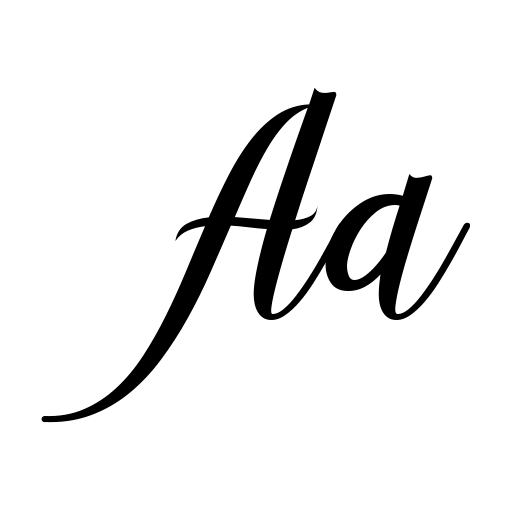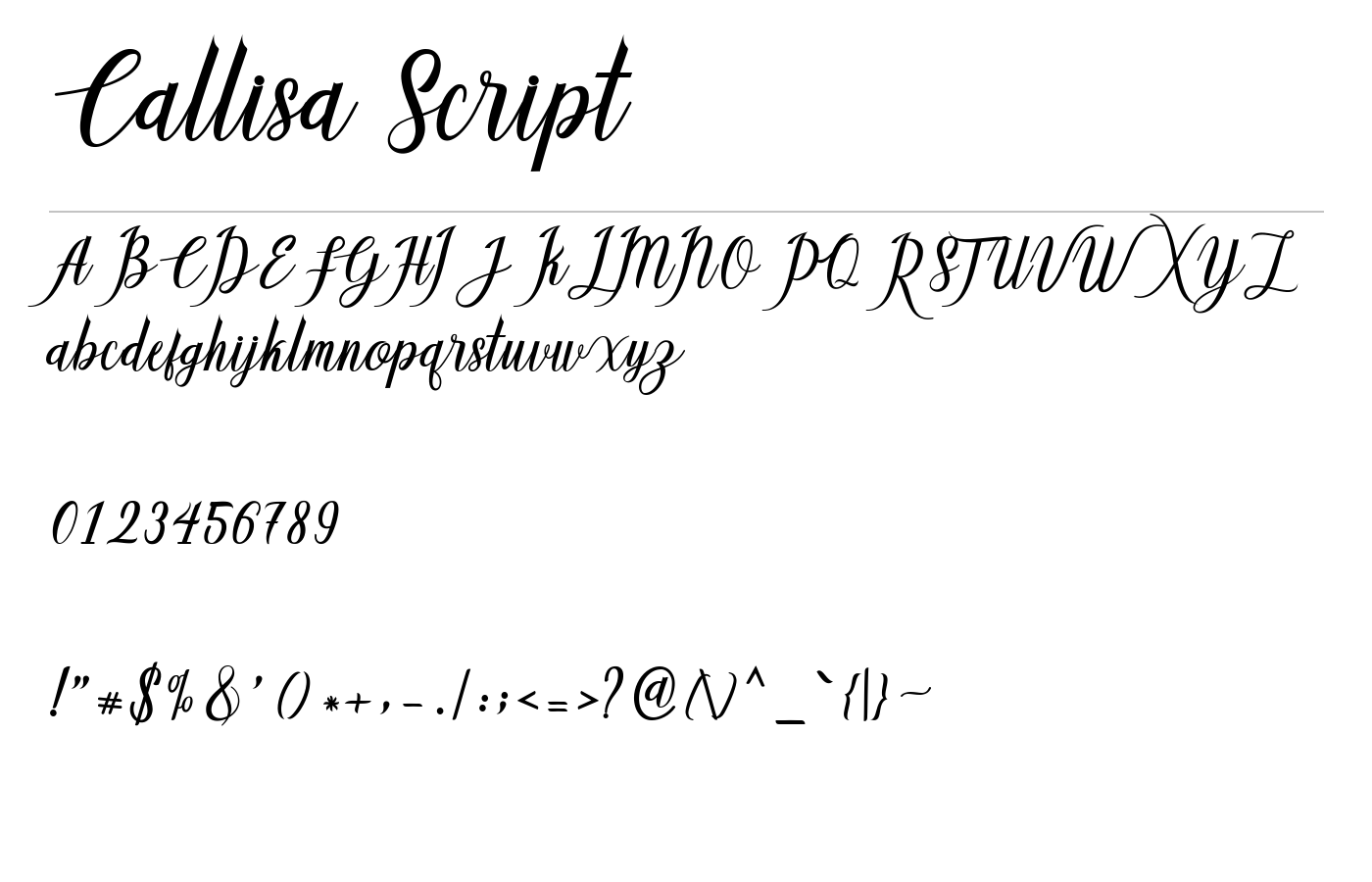
Callisa Script is an elegant and refined script font with flowing, connected letterforms that mimic natural handwriting. Its light weight, high contrast strokes, and delicate curves give it a graceful, sophisticated personality perfect for luxury branding, wedding invitations, and stylish editorial designs. This font shines in display uses where its decorative style can add a personal, artistic touch without sacrificing readability.
Callisa Script Font
About Callisa Script Font